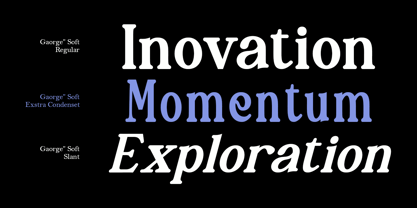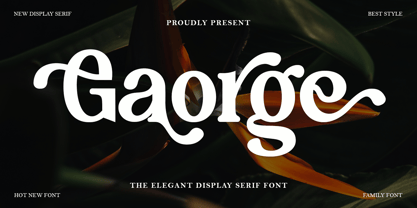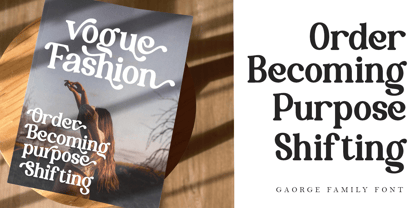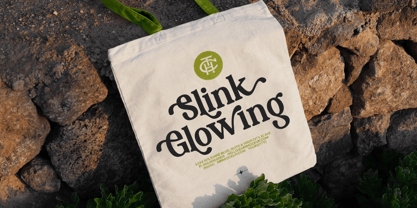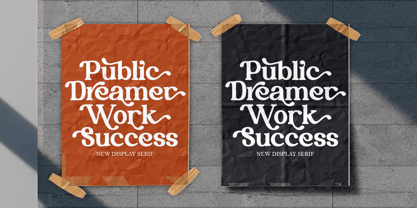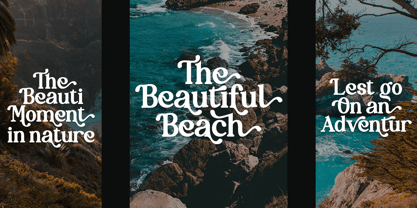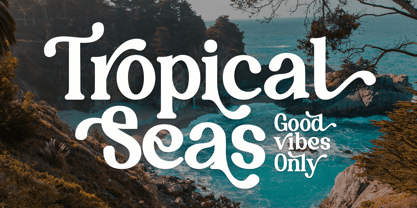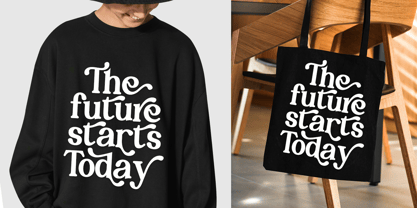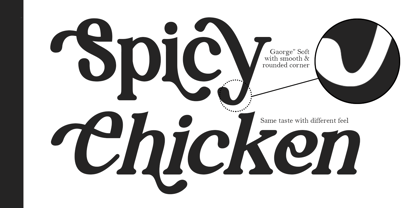
Gaorge
by Deorde Studio
The Gaorge Font Family was designed by Teuku Syarkawi and published by Deorde Studio. Gaorge contains 10 styles and family package options. More about this family
Gaorge is a luxurious vintage serif typeface that captures the elegance of classic design with a modern retro touch. This medium-contrast display font allows you to mix and match letterforms to create beautiful, unique curves and shapes in seconds, without requiring advanced design skills.
Bold yet refined, Gaorge delivers a timeless character for branding, logos, wedding invitations, social media graphics, advertising, packaging, product labels, photographic watermarks, stationery, and any project requiring sophisticated, high-impact typography. Its versatile design maintains excellent readability for both large display headlines and smaller editorial text.